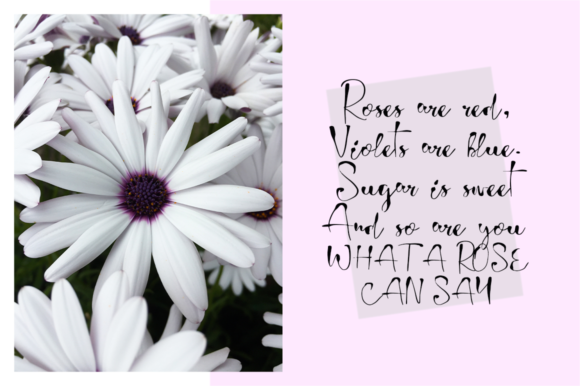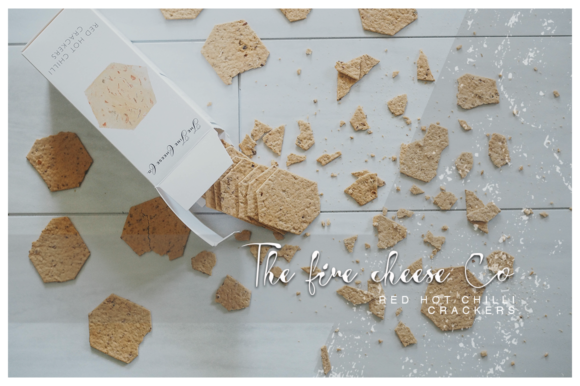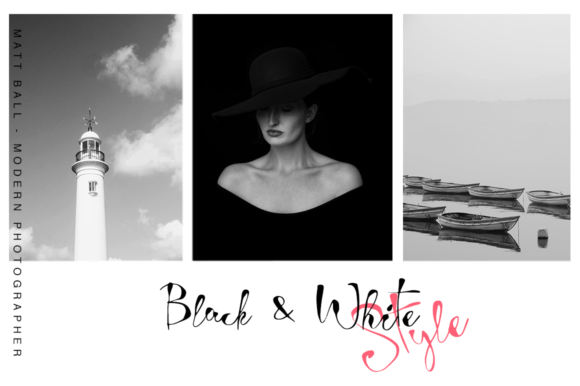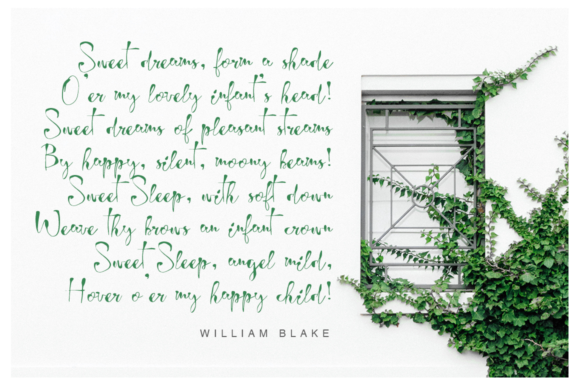
About Wondery Font
Wondery is a handcrafted script featuring realistic letters. Fall in love with its unfiltered authenticity. Get this amazing freebie and use it to create outstanding designs with it!